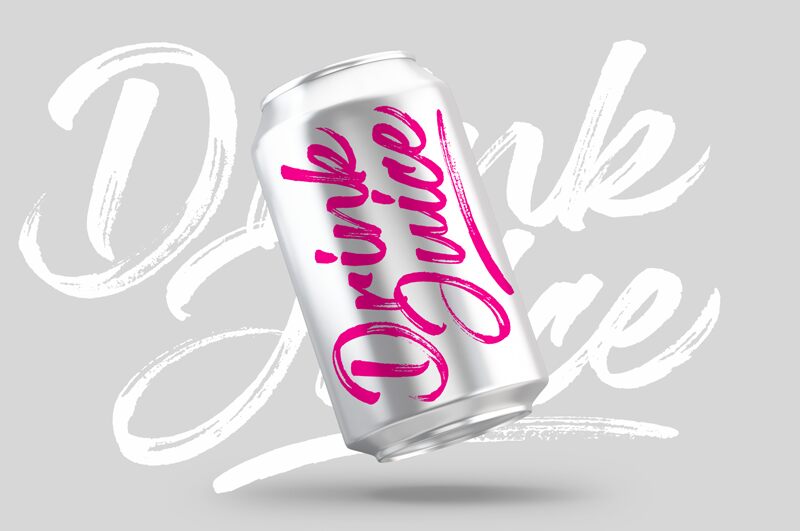
Meet Arthemis, a captivating brush font designed by Hanzel Space. With its organic and artistic style, Arthemis is perfect for creating eye-catching designs that demand attention.
This versatile typeface can be used in a wide range of projects, from branding and packaging to stationery and social media graphics. Its handwritten aesthetic adds a personal touch to wedding invitations, quotes, and greeting cards. Arthemis includes uppercase characters, numerals, symbols, two sets of lowercase letters, and an impressive collection of 28 ligatures.
Let your creativity flow with Arthemis and bring your designs to life with its unique charm and elegance.
Features:
- Full Set of standard alphabet and punctuation
- Extra set of beginning swashed lowercase
- Extra set of ending swashed lowercase
- Handwritten ligatures
- Multilingual Characters (ẂŴẄẀŶỲ ẃŵẅẁŷỳ)